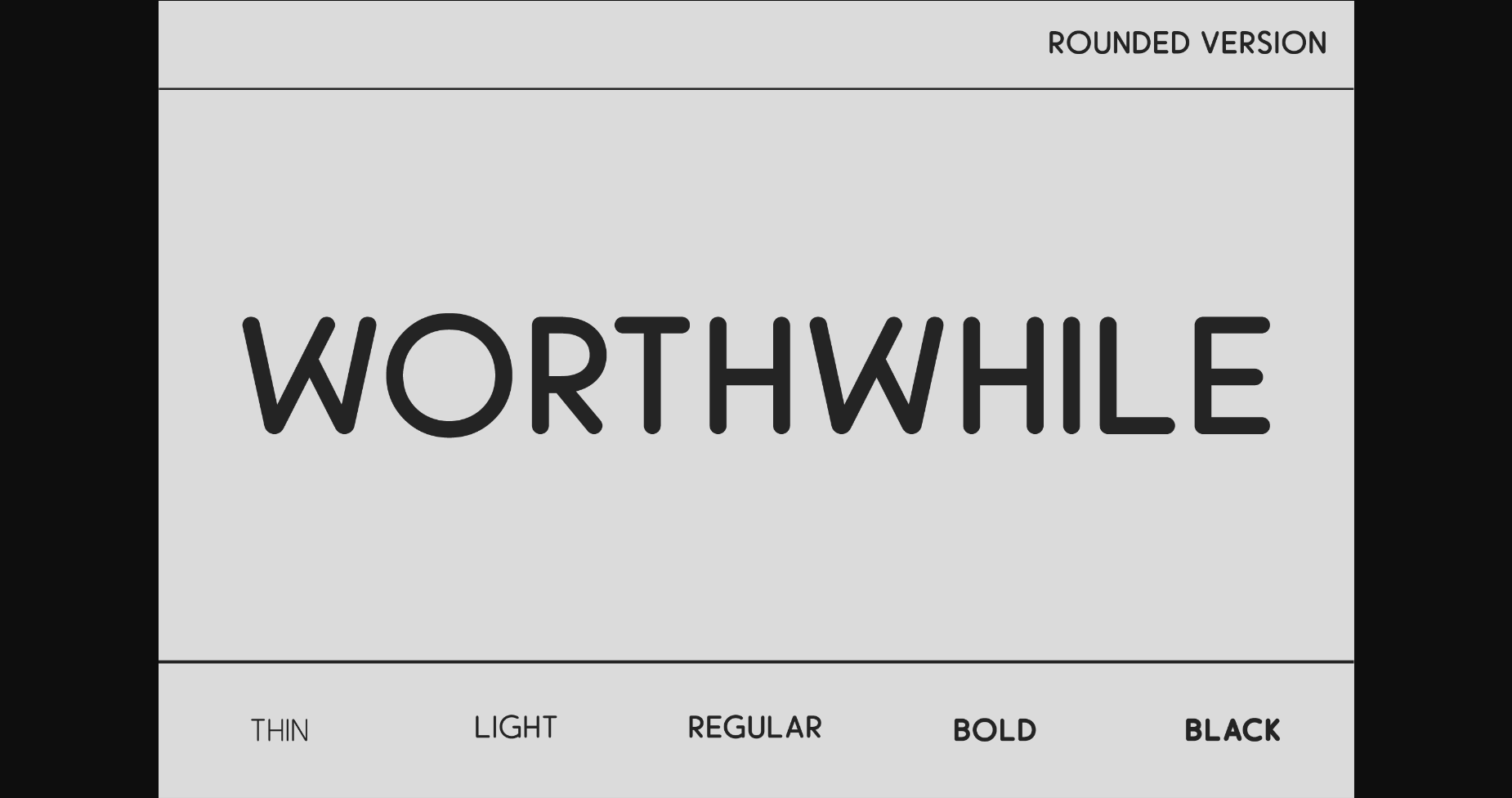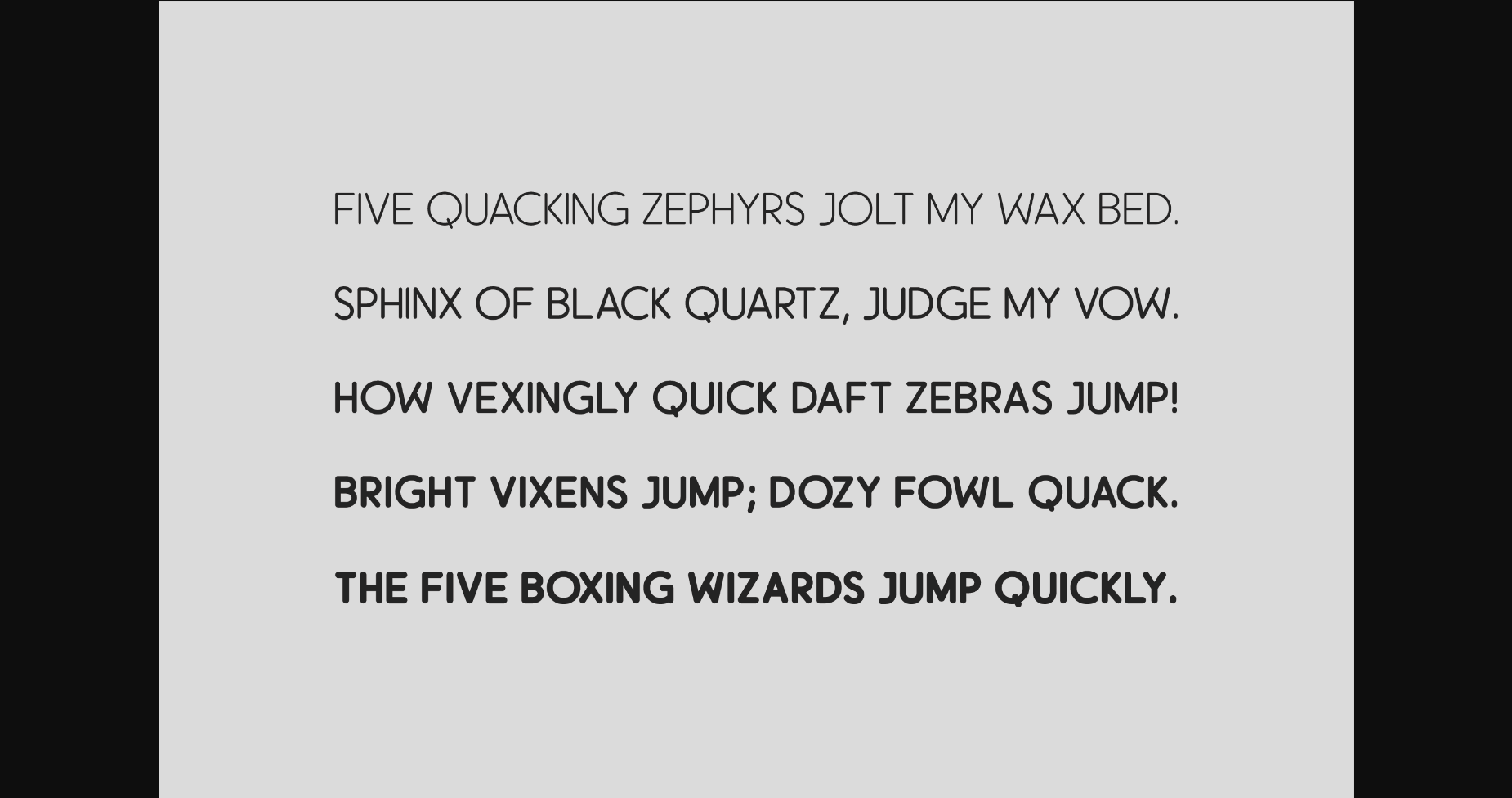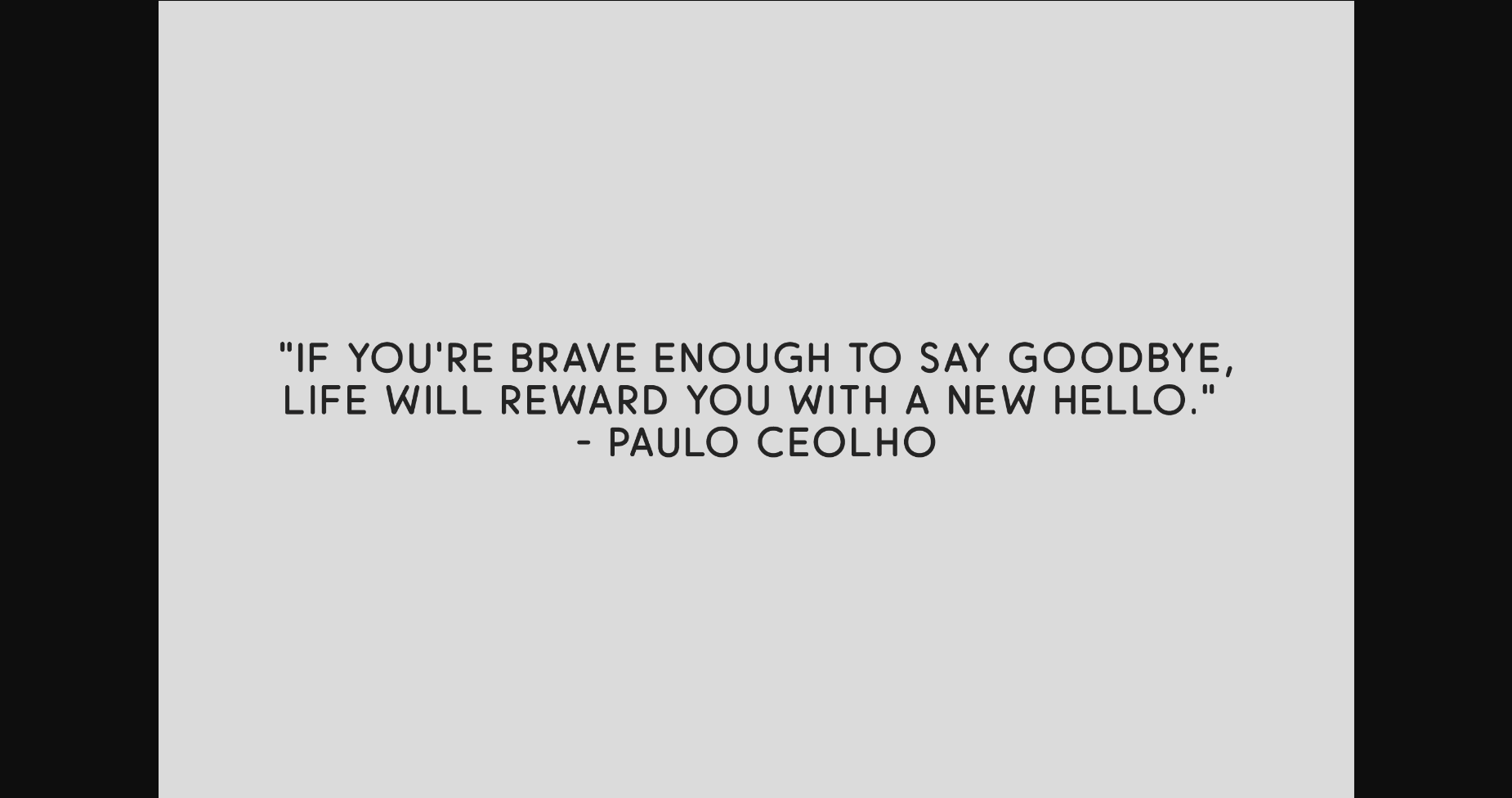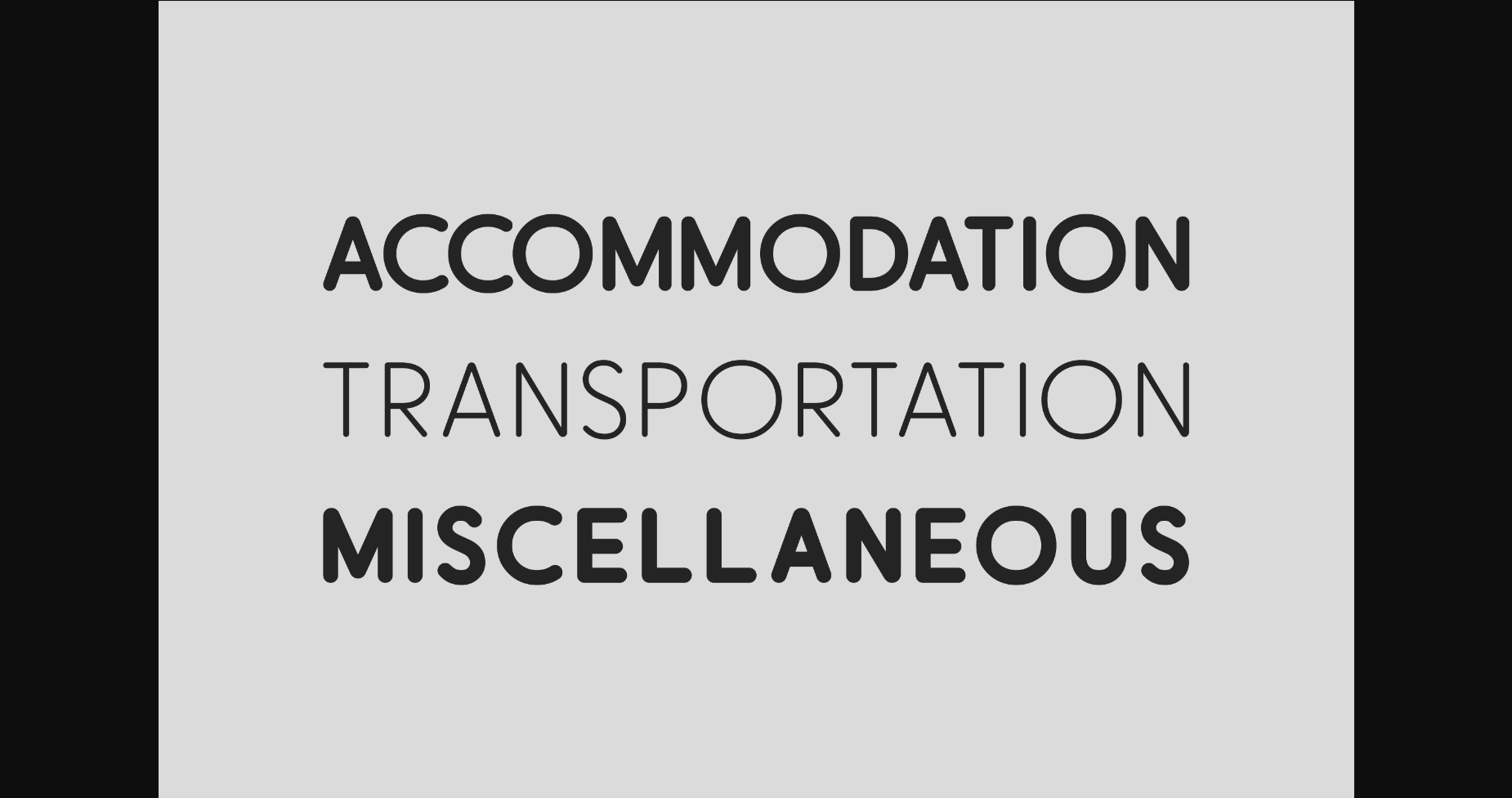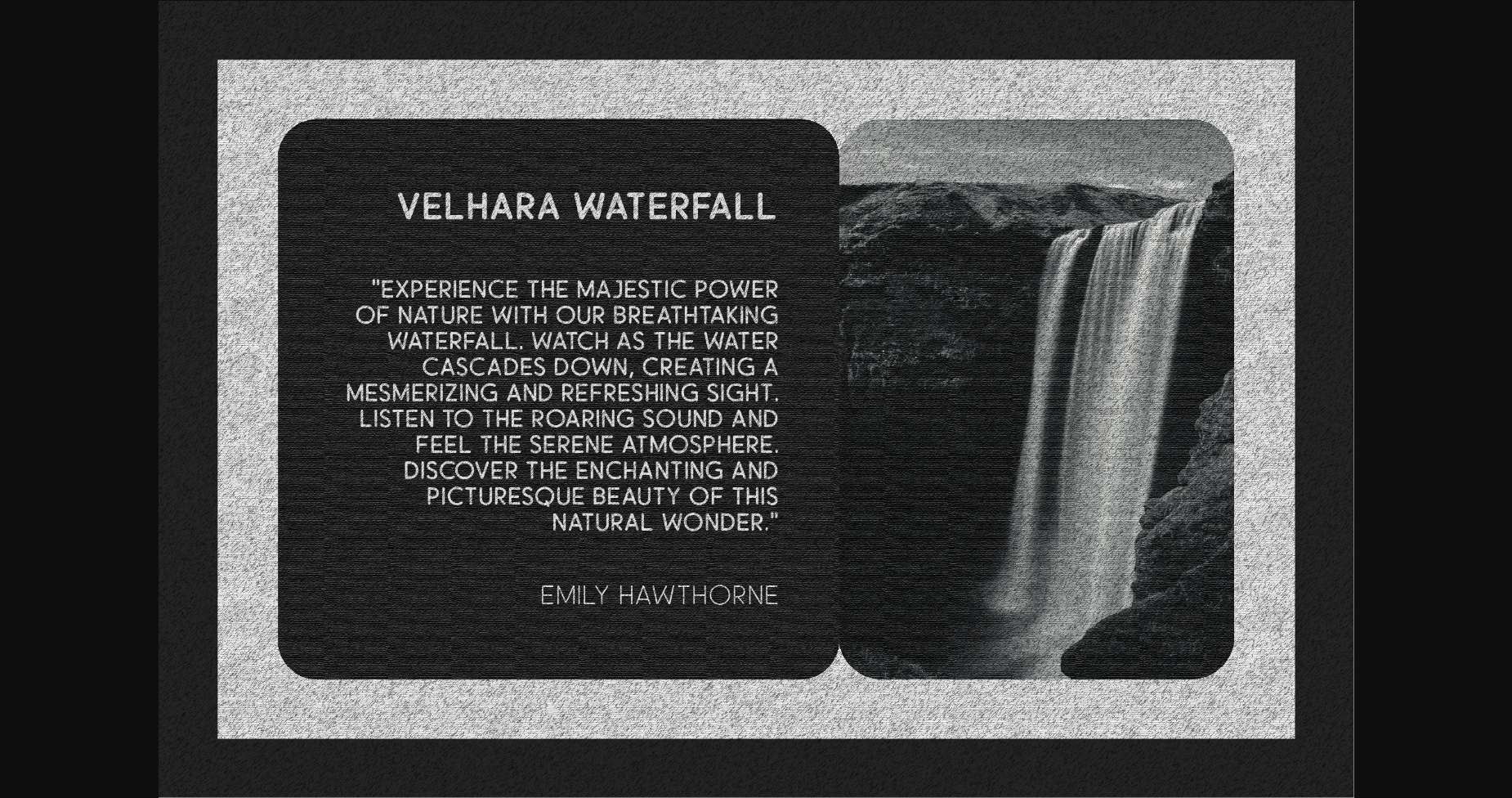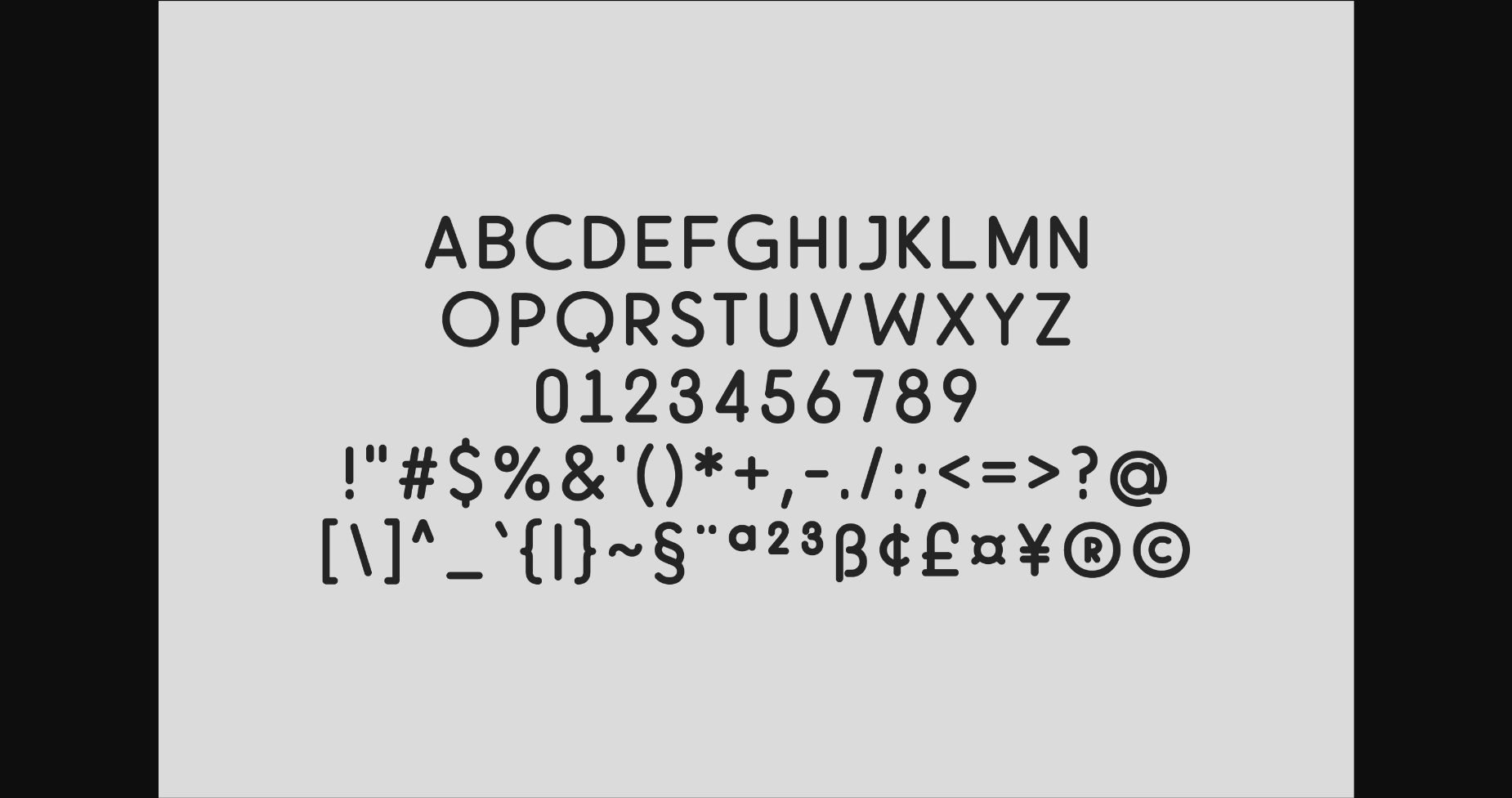
Worthwhile Rounded Font
About Worthwhile Rounded Font
Worthwhile Rounded is an exquisite sans serif font. Crafted with utmost precision, it effortlessly enhances any project, whether it be a magazine, logo, or film poster. Discover the perfect balance of sophistication and simplicity, allowing your designs to exude timeless charm.